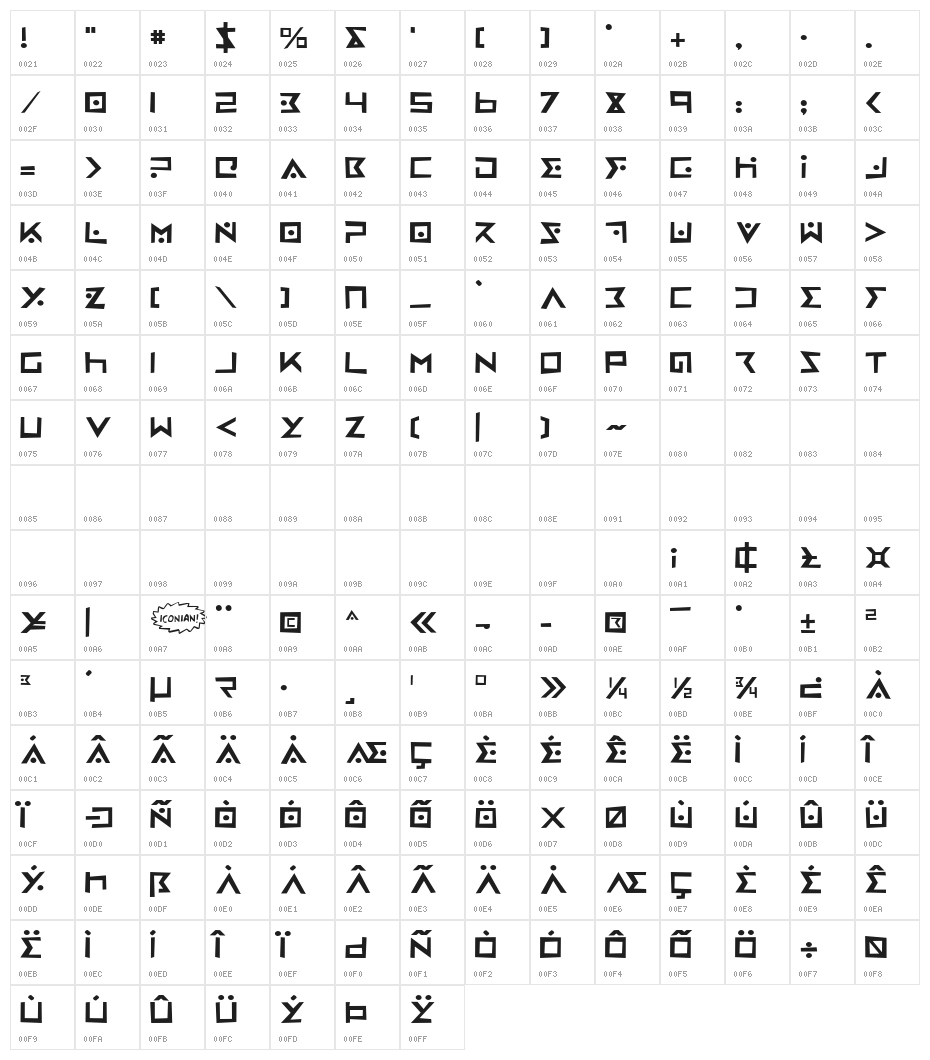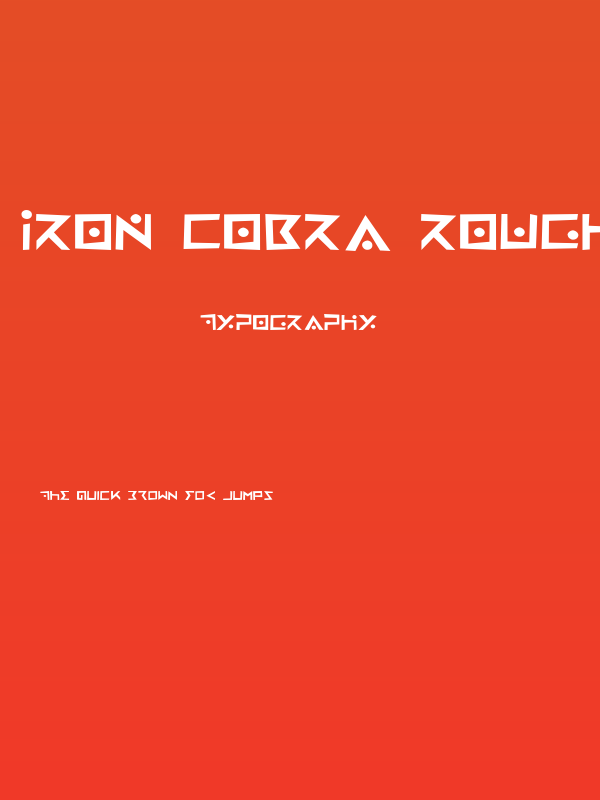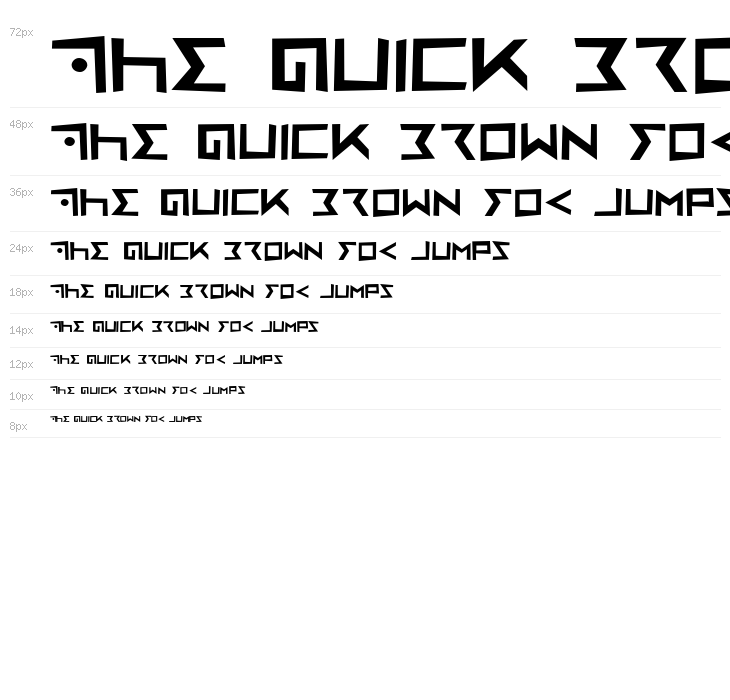
Iron Cobra Rough Font
| Gesamtstil | Futuristic |
| Vorgeschlagene Projekte | Ideal for sci-fi themed designs, video game titles, posters, and branding that requires a modern and bold statement. |